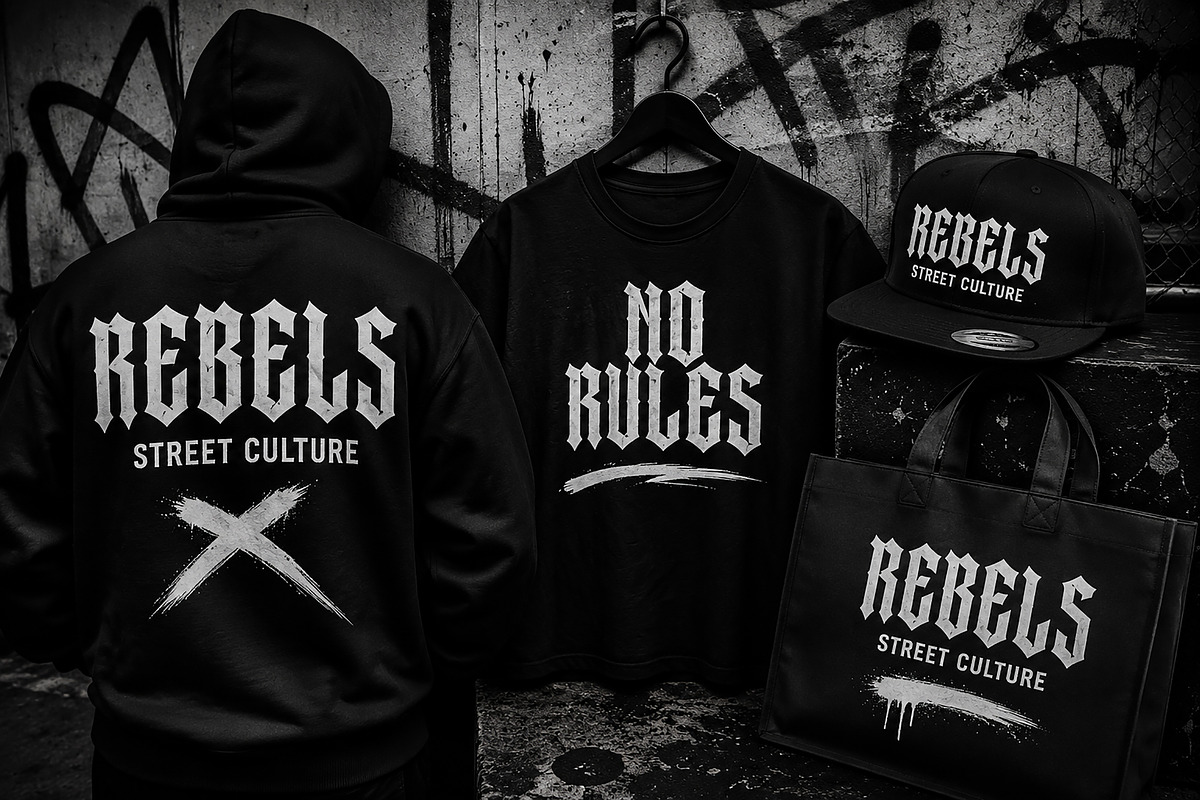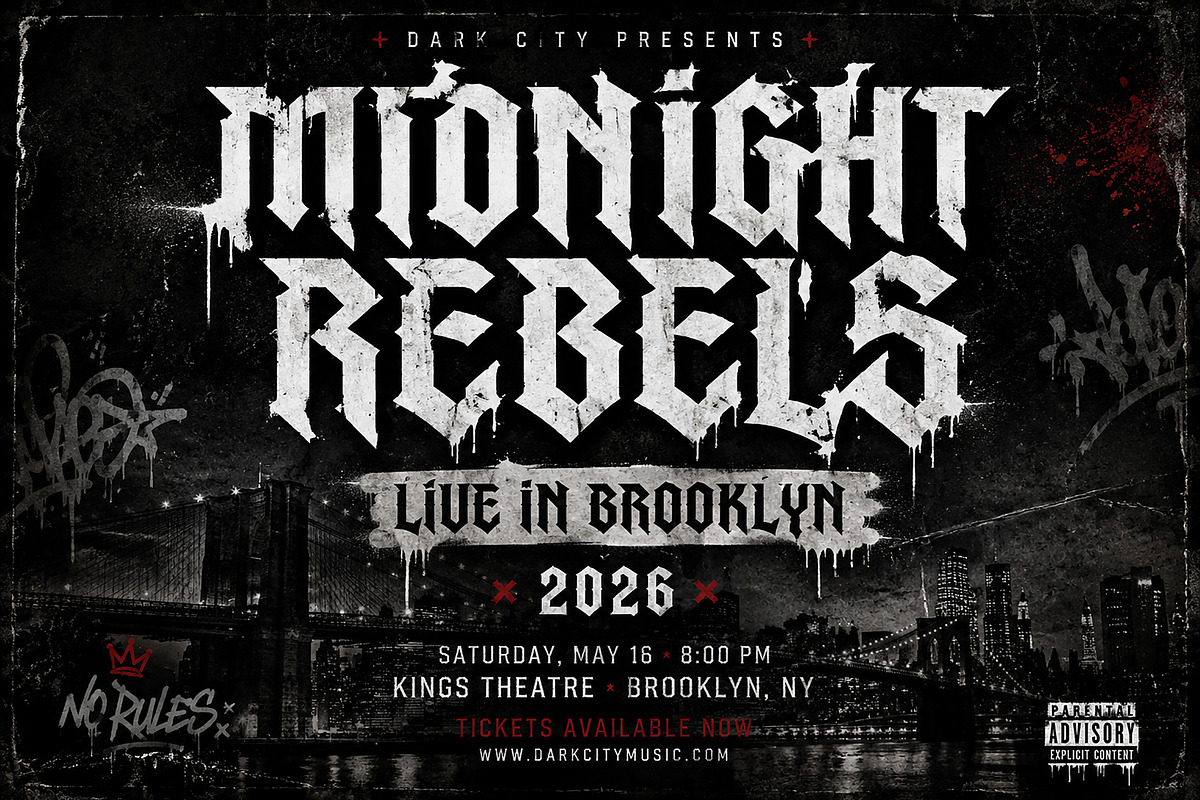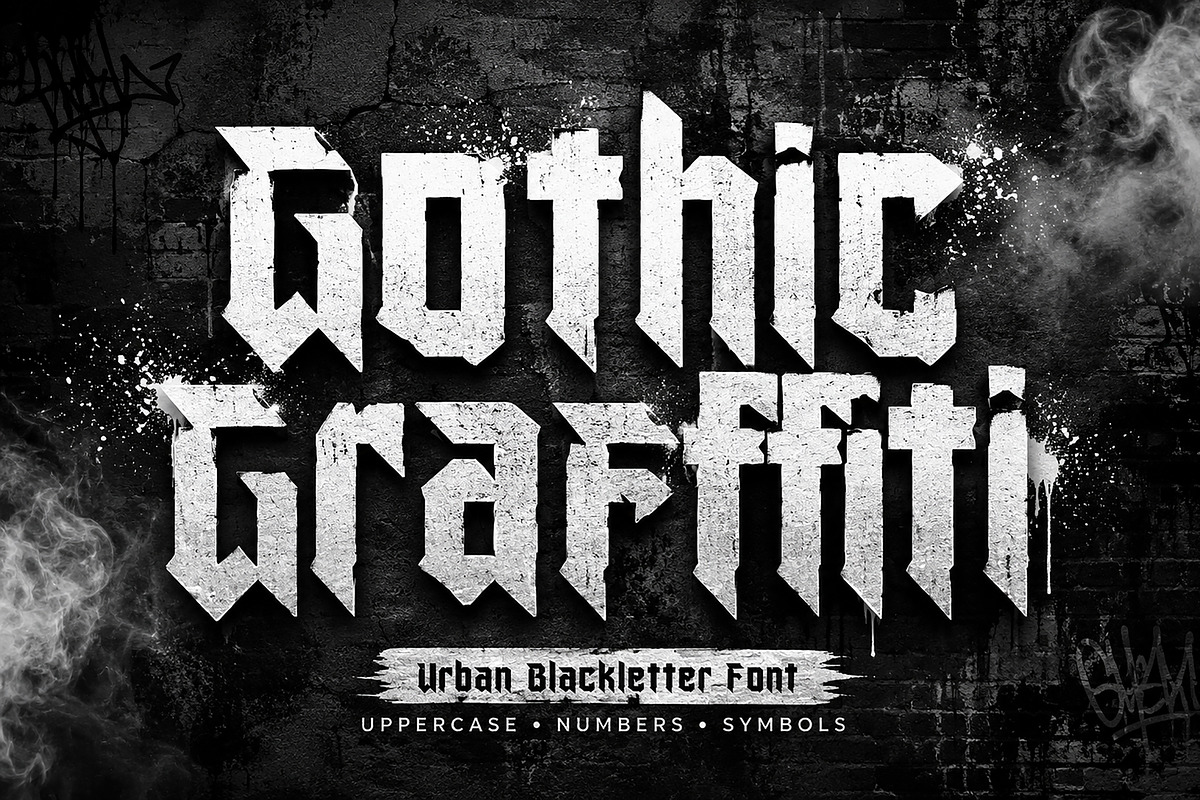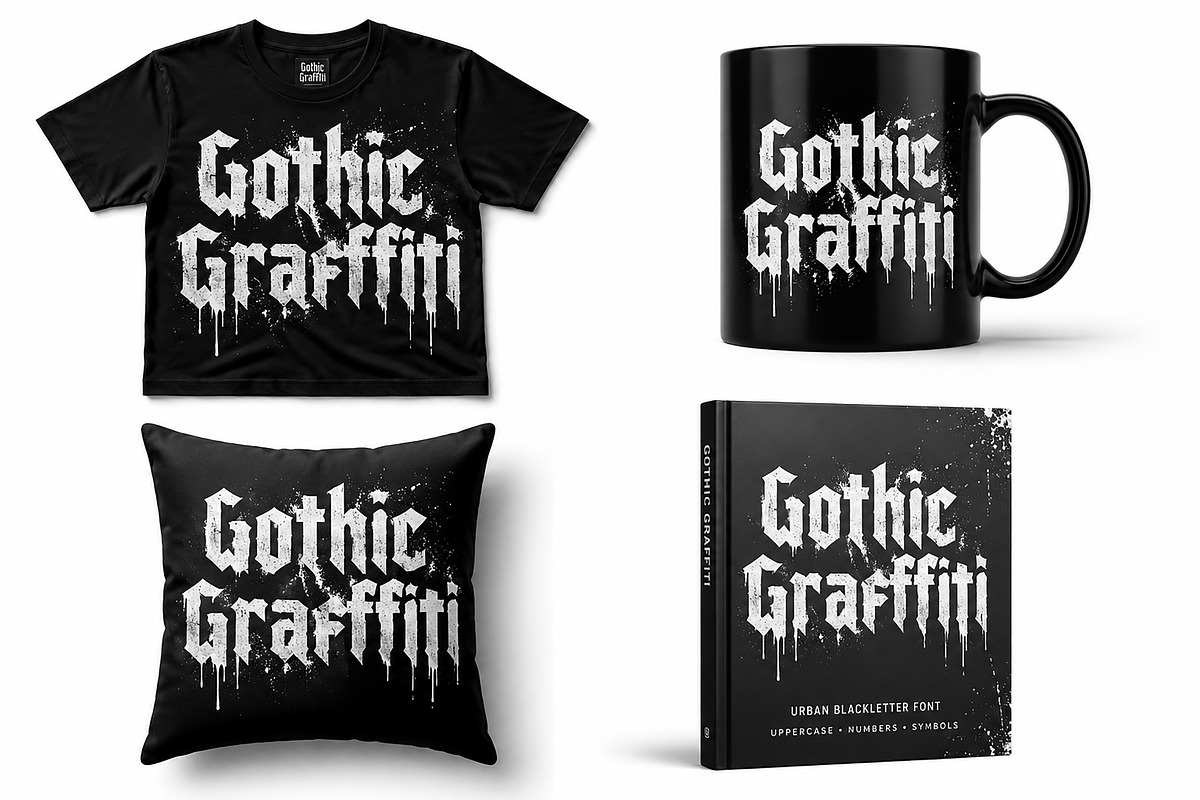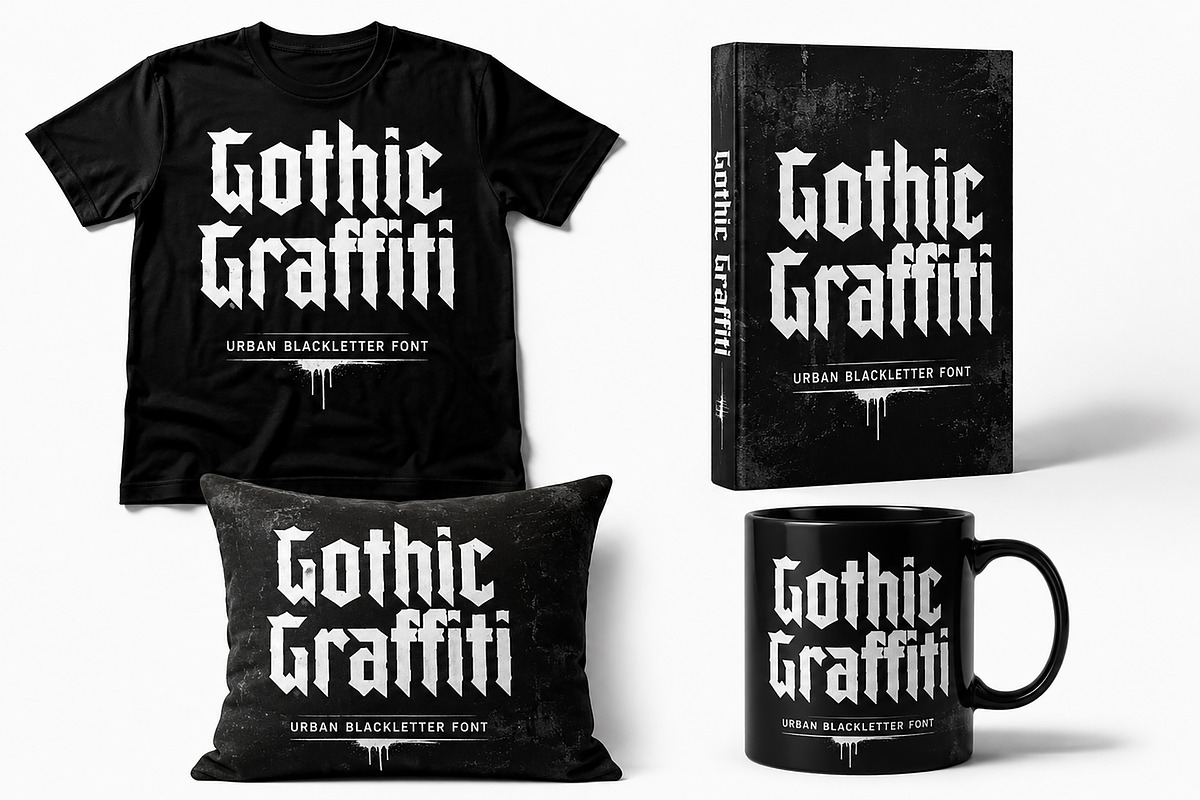
Gothic Graffiti
Gothic Graffiti Font
Gothic Graffiti is a bold urban blackletter display font that fuses classic Gothic letterforms with raw street-art energy. Designed for creators who want to make a strong visual statement, this font delivers a unique blend of medieval influence and modern graffiti culture.
With its sharp angles, aggressive shapes, and rebellious attitude, Gothic Graffiti is perfect for streetwear branding, music posters, album covers, tattoo-inspired designs, logos, gaming graphics, merchandise, social media content, and edgy editorial projects.
Whether you're creating a bold fashion label, underground event poster, or urban-inspired branding project, Gothic Graffiti adds instant impact and personality to your work.
Bring the spirit of the streets and the power of blackletter typography into your next creative project with Gothic Graffiti.
A bold urban blackletter display font inspired by Gothic typography and street graffiti culture. Perfect for streetwear, logos, posters, album covers, merchandise, gaming, and edgy branding projects.